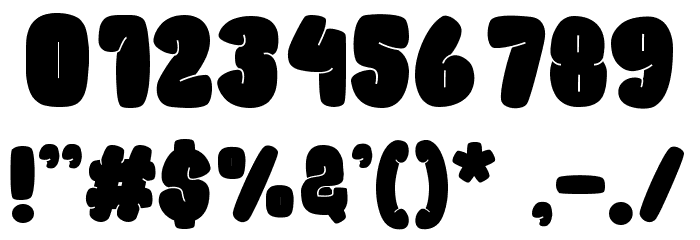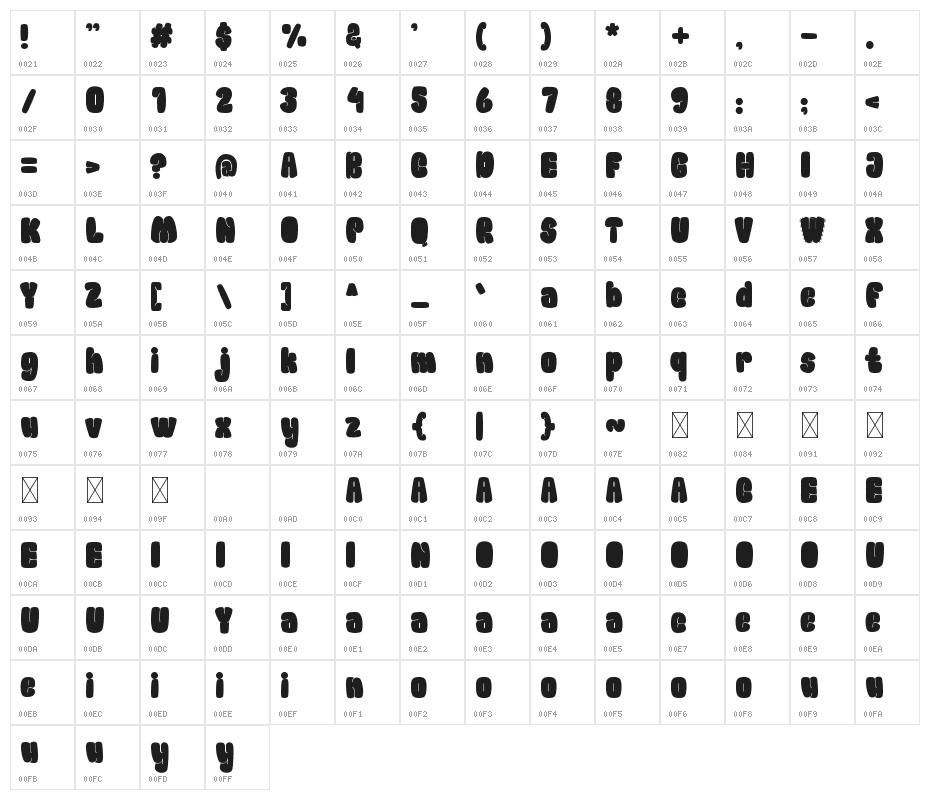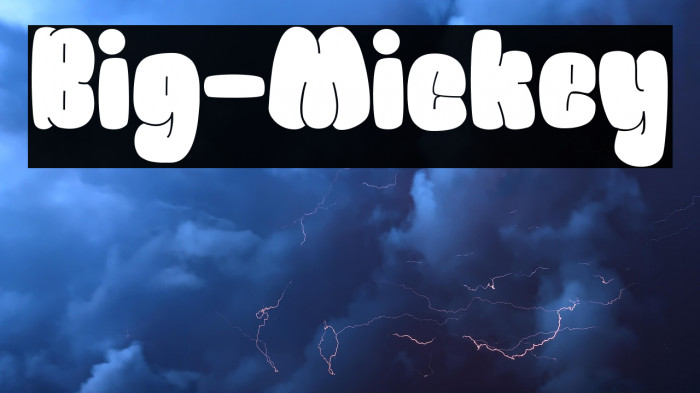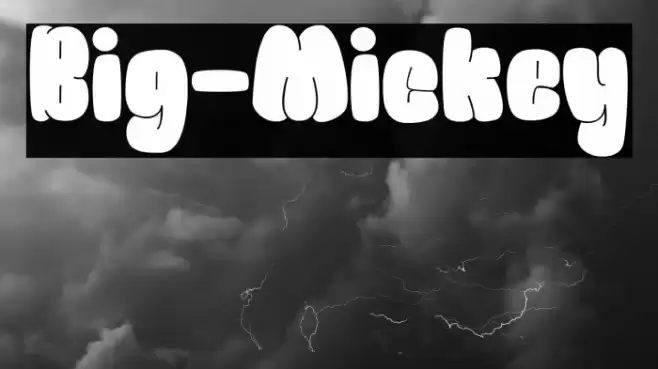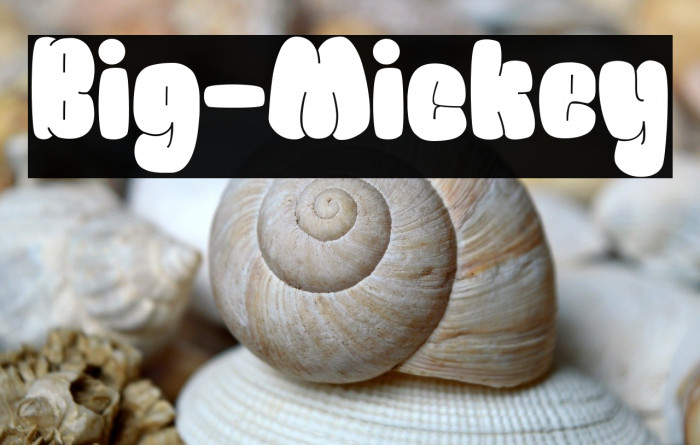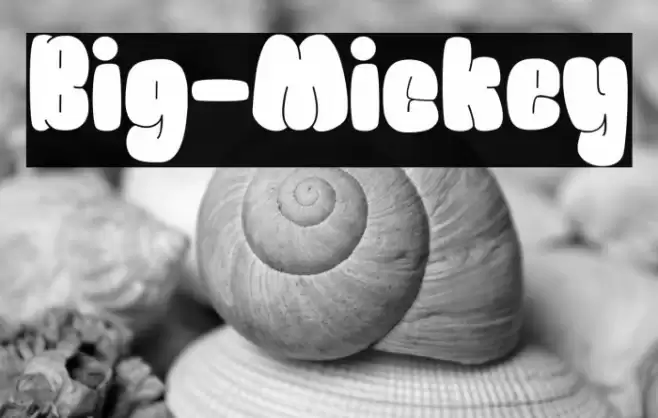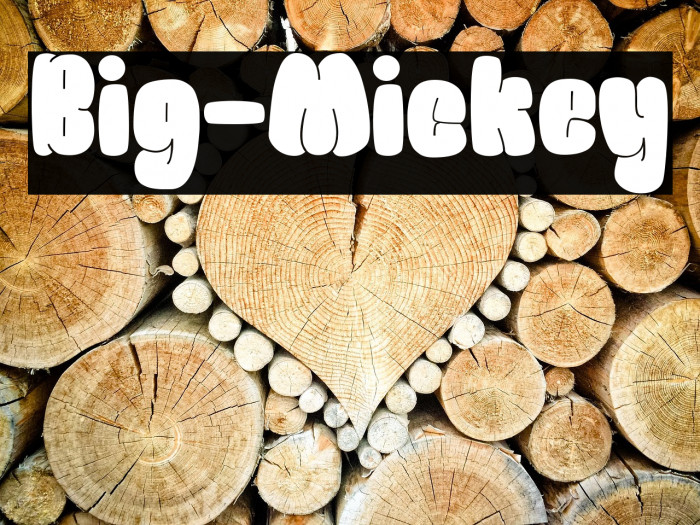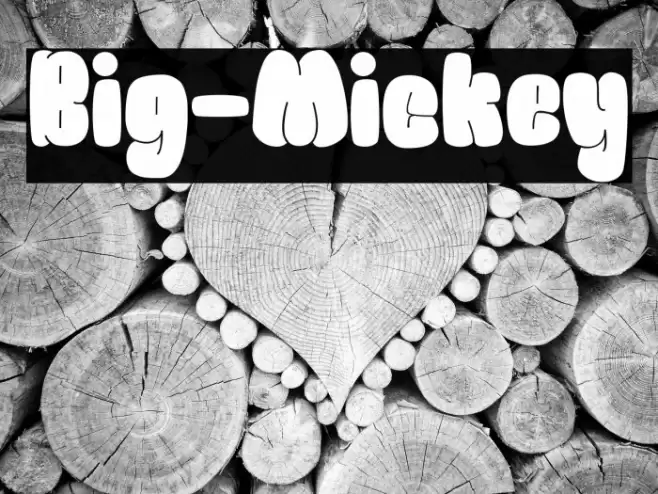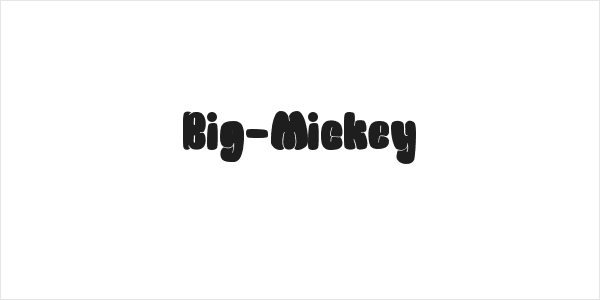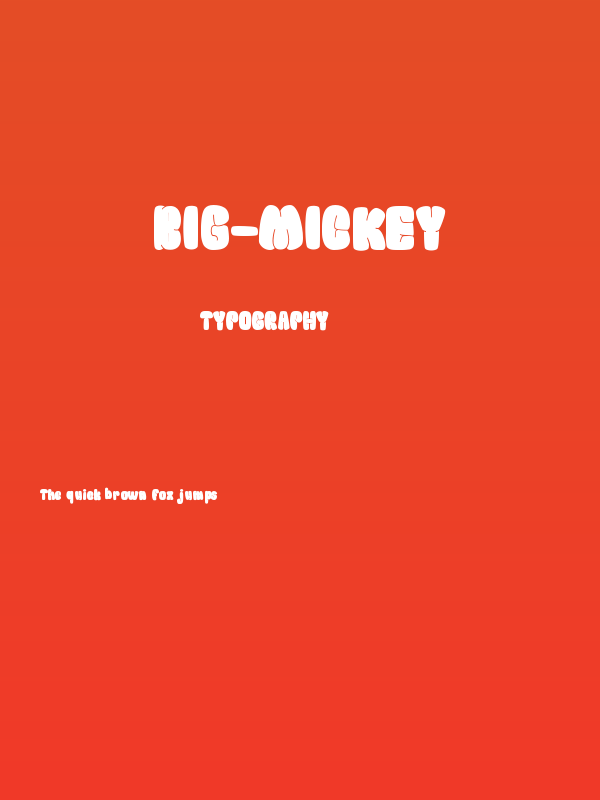
Big-Mickey Font
| 全体的なスタイル | Playful, Fun, Bold |
| 用途 | Headlines, Posters, Branding |
| おすすめプロジェクト | Perfect for children's book covers, playful branding, event posters, and merchandise designs. |